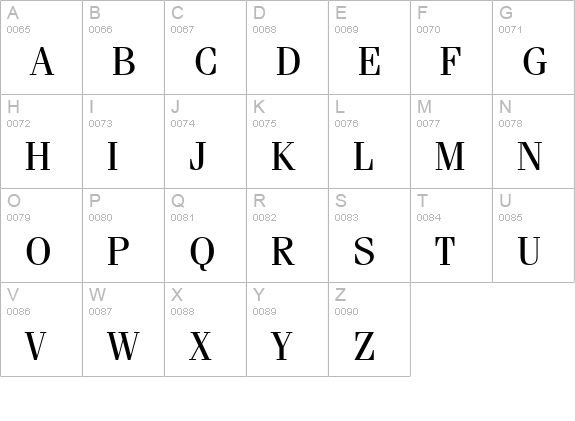
Fenice Regular BT is the standard, neutral variant in the Fenice typeface family \xE2\x80\x94 well suited to general body text, paragraphs, and standard typographic work.
Fenice Regular BT font is a versatile typeface that exudes elegance and sophistication. With its clean lines and classic design, this font is perfect for a wide range of projects including branding, advertising, and editorial design. The timeless appeal of Fenice Regular BT font makes it a popular choice among designers looking for a reliable and stylish option. What sets Fenice Regular BT font apart is not only its aesthetic appeal but also its accessibility. This font is freely available to download at FontsMarket.com, making it a valuable resource for designers looking to enhance their creative projects without breaking the bank. Whether you're working on a professional design project or a personal creative endeavor, Fenice Regular BT font is sure to elevate your work with its timeless charm and versatility. Download Fenice Regular BT font today from FontsMarket.com and unlock the potential of this classic typeface for your next design project.